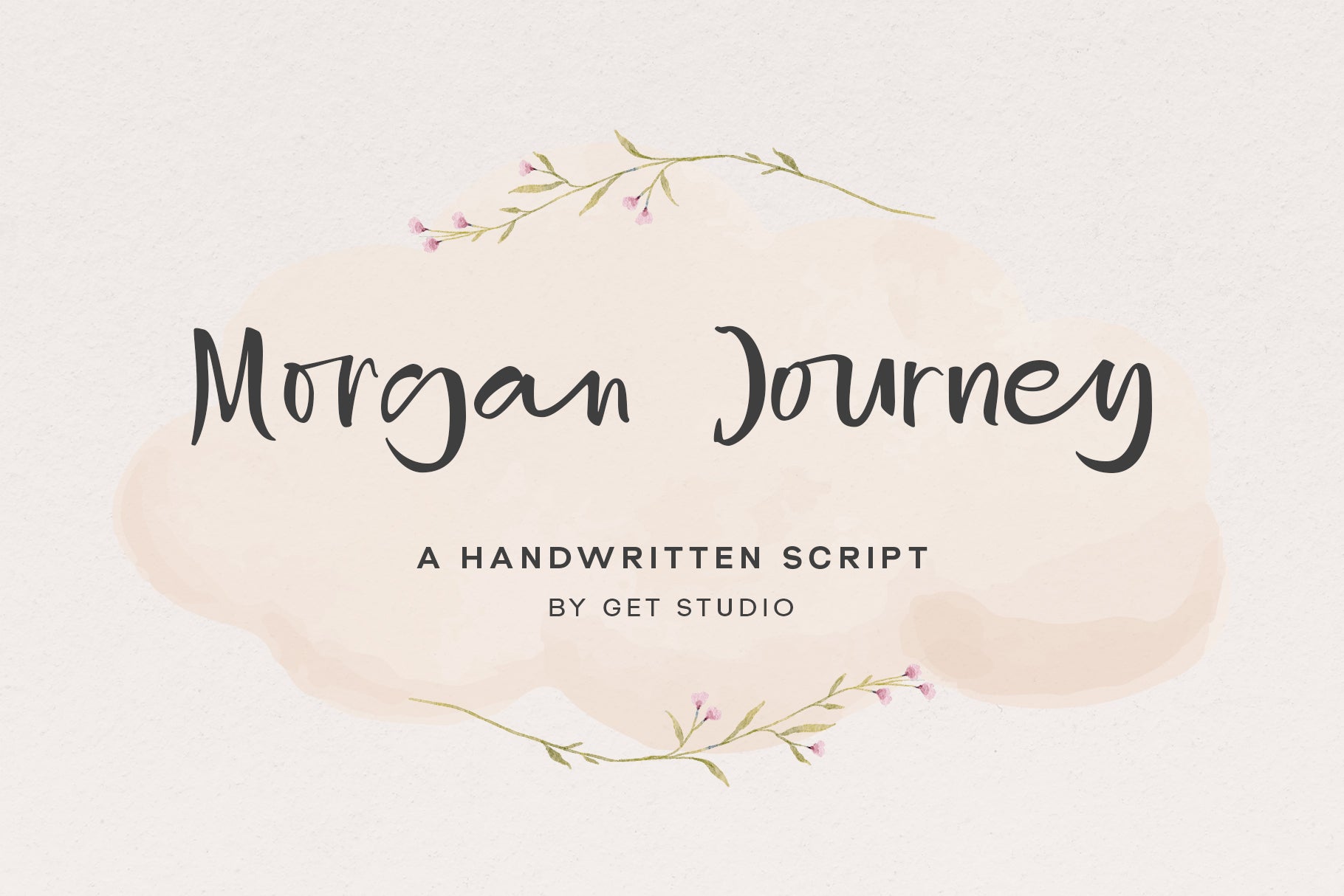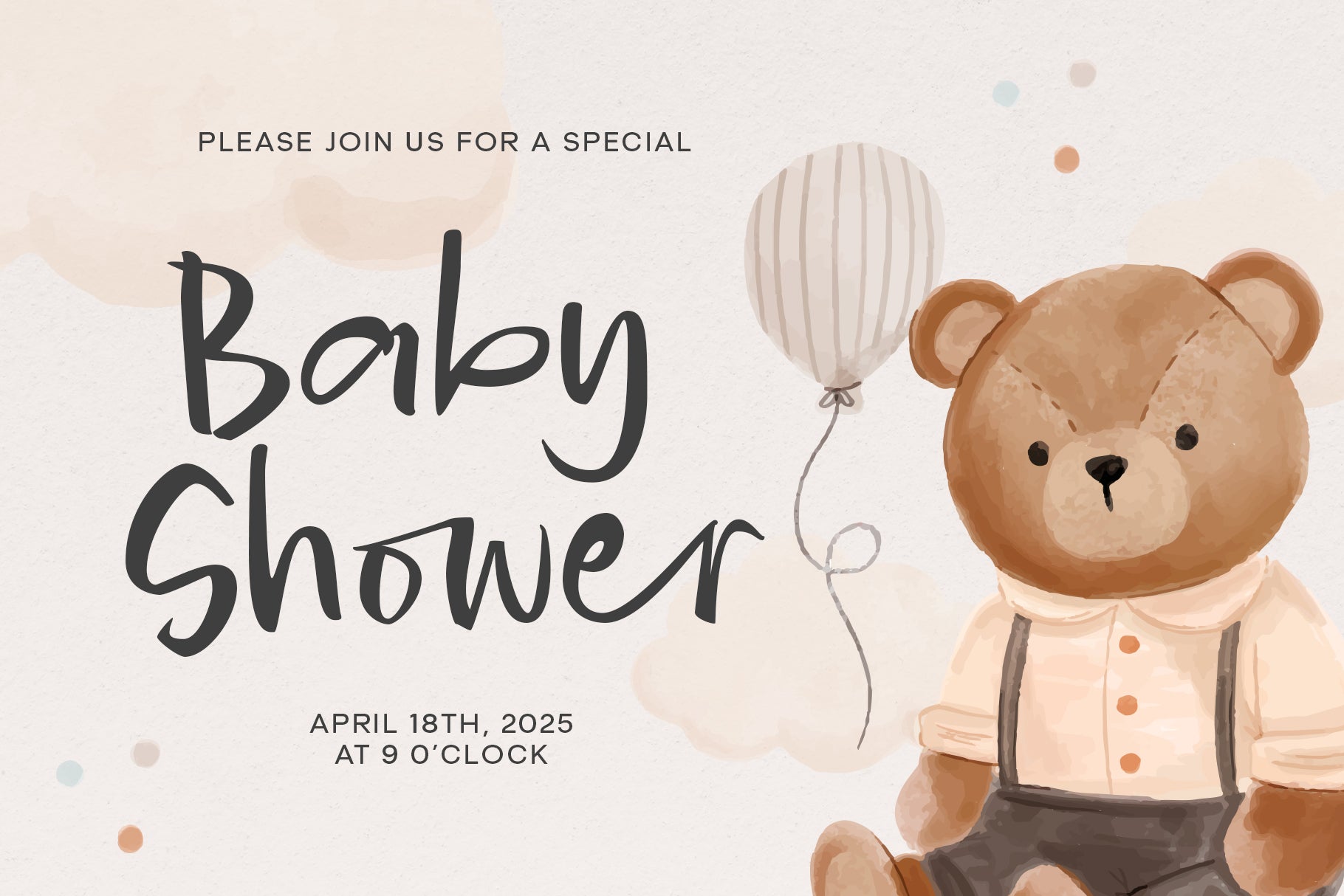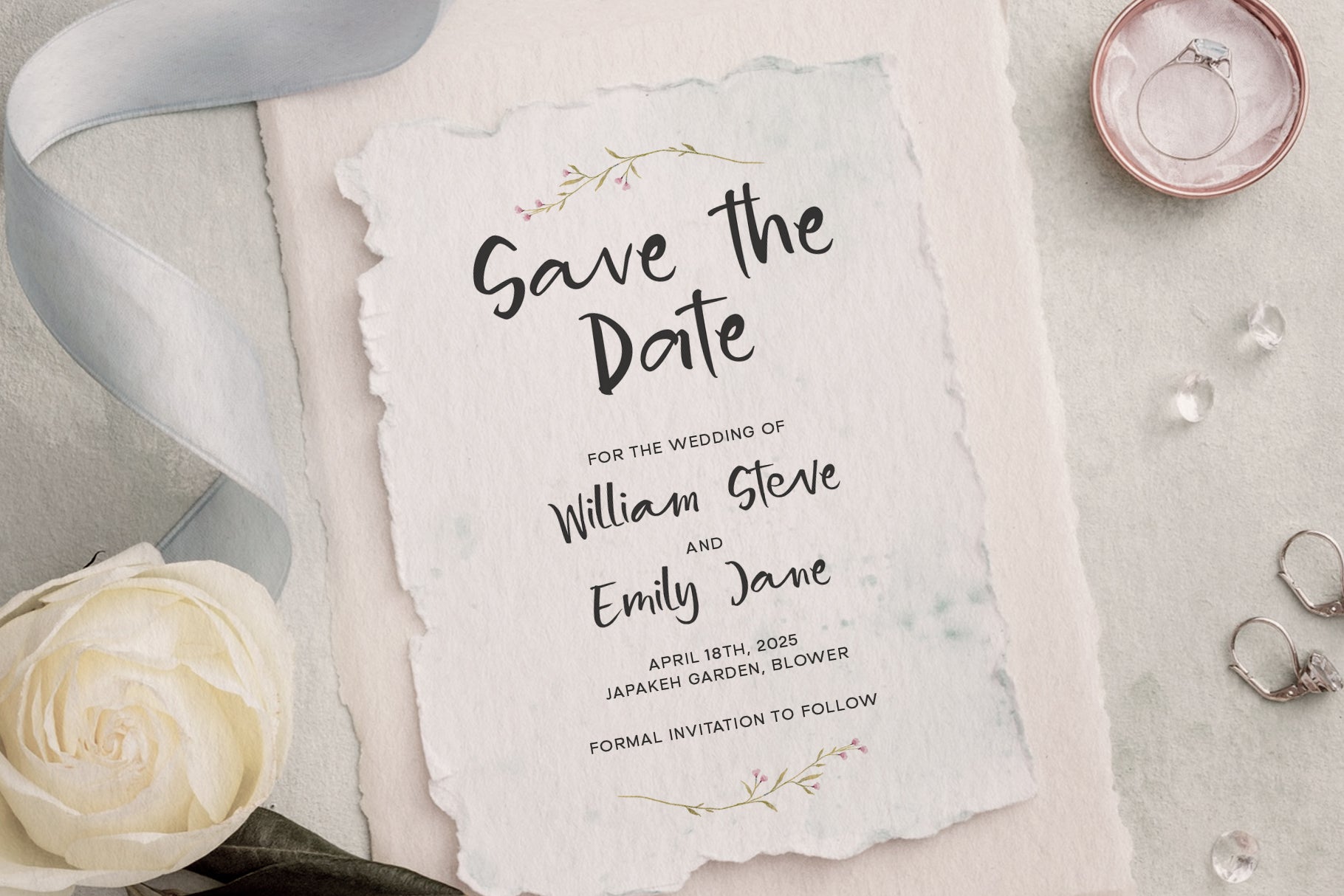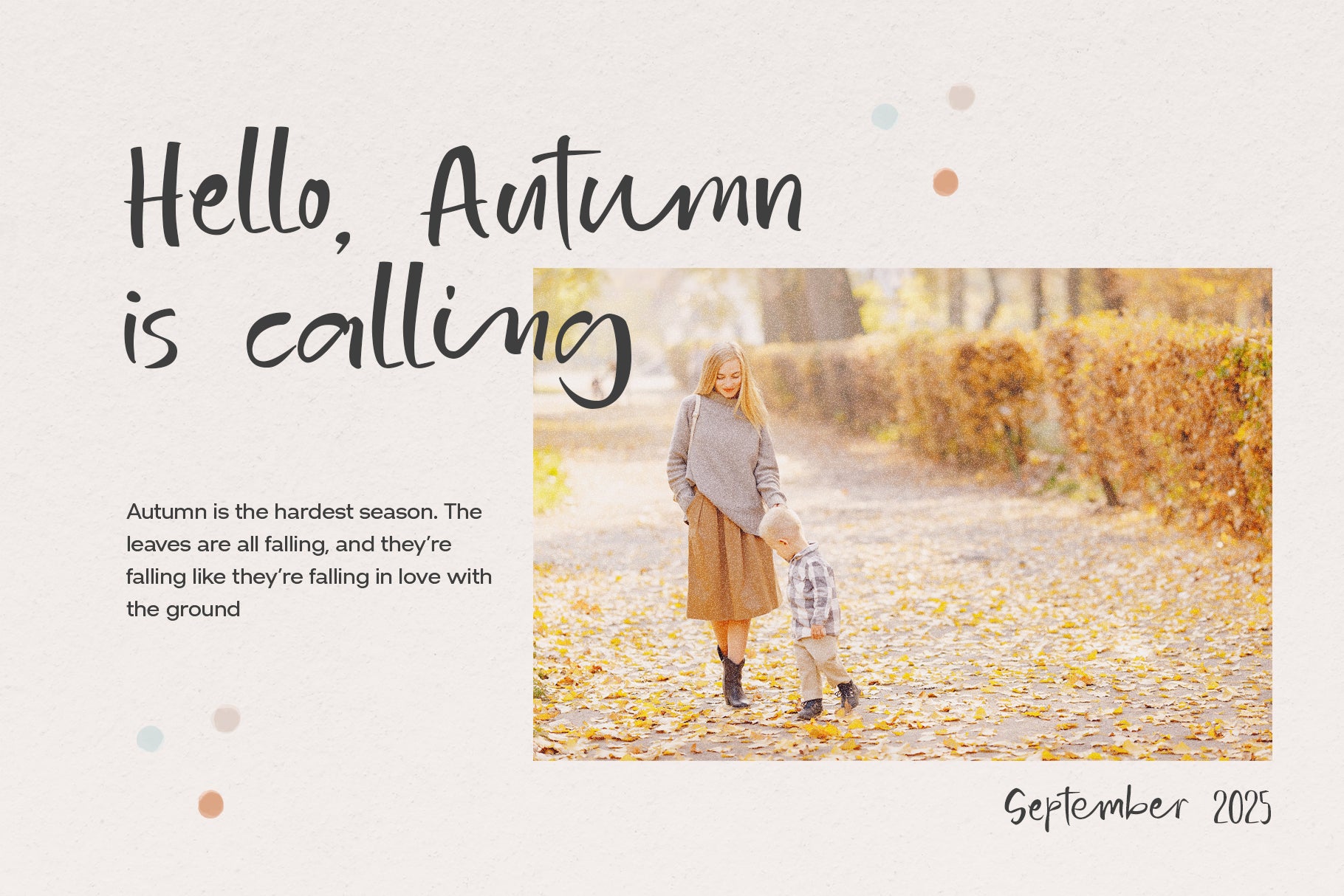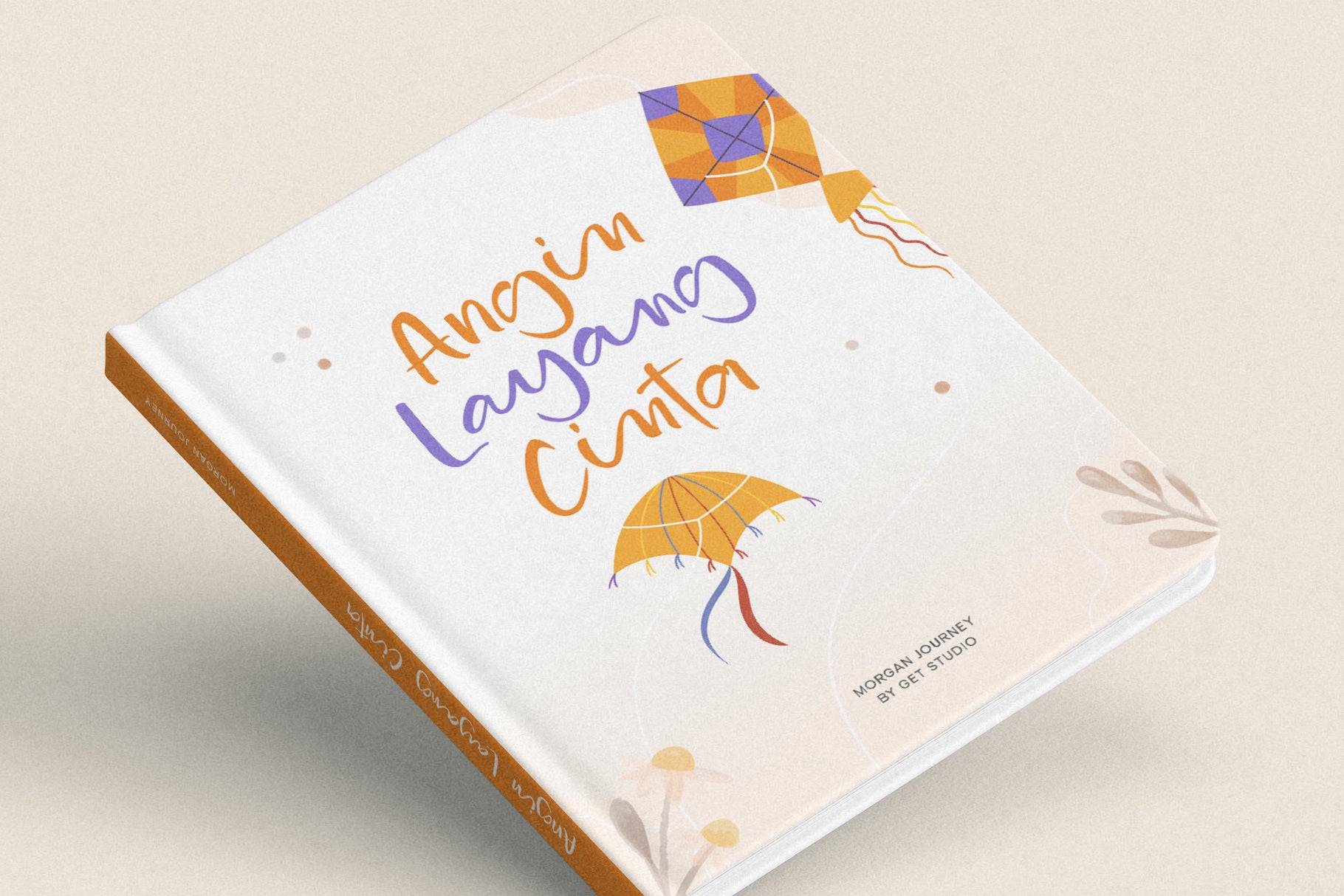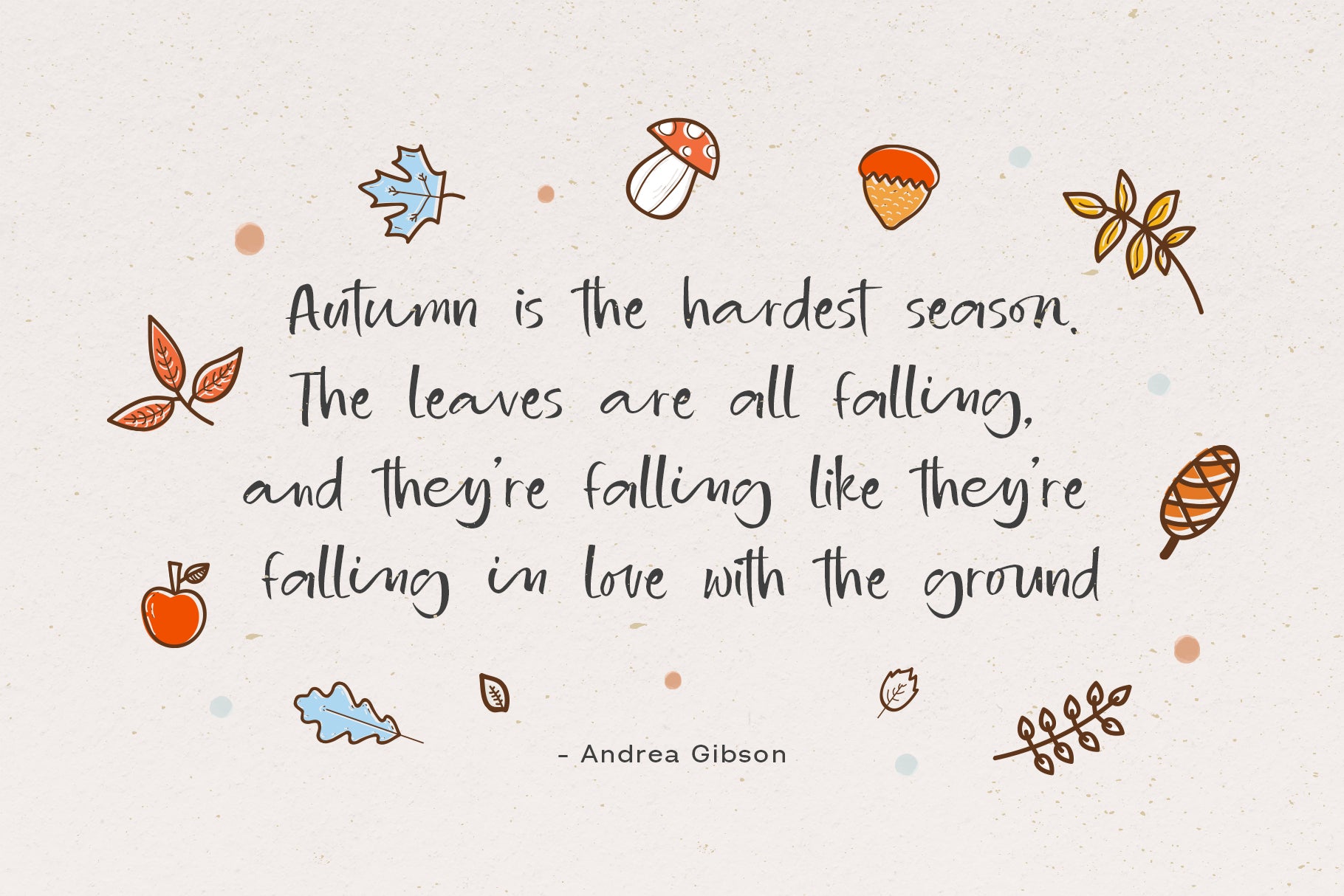
Morgan Journey created by Get Studio is a handwritten script font that brings a sense of natural elegance and organic charm to your designs. With its smooth, flowing strokes and a distinctly personal touch, this font captures the warmth of hand lettering while maintaining clean readability. Perfectly imperfect in the best way, Morgan Journey is ideal for branding, quotes, wedding invites, social media graphics, and anything that calls for an authentic, handcrafted vibe.
What makes Morgan Journey truly stand out is its wide array of ligatures, giving each word a unique and dynamic look. The subtle bounce and rhythm in the letterforms create a playful yet refined personality, making it easy to pair with illustrations or minimalist layouts. Whether you're designing for cozy autumn themes or heartfelt personal projects, Morgan Journey delivers a soft and inviting visual presence.